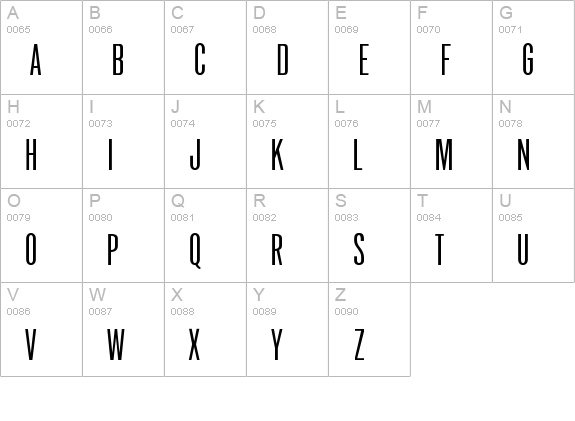
Arizona font is a versatile and stylish typeface that exudes a sense of modernity and sophistication. With its clean lines and elegant curves, this font is perfect for a wide range of design projects, from branding to editorial design. The Arizona font family includes a variety of weights and styles, making it easy to customize and adapt to your specific needs. One of the best things about Arizona font is that it is completely free to download at FontsMarket.com. This means that you can access this high-quality typeface without having to spend a dime, making it a fantastic choice for designers on a budget or anyone looking to add a touch of class to their projects without breaking the bank. Don't miss out on the opportunity to enhance your designs with the Arizona font - download it for free today!